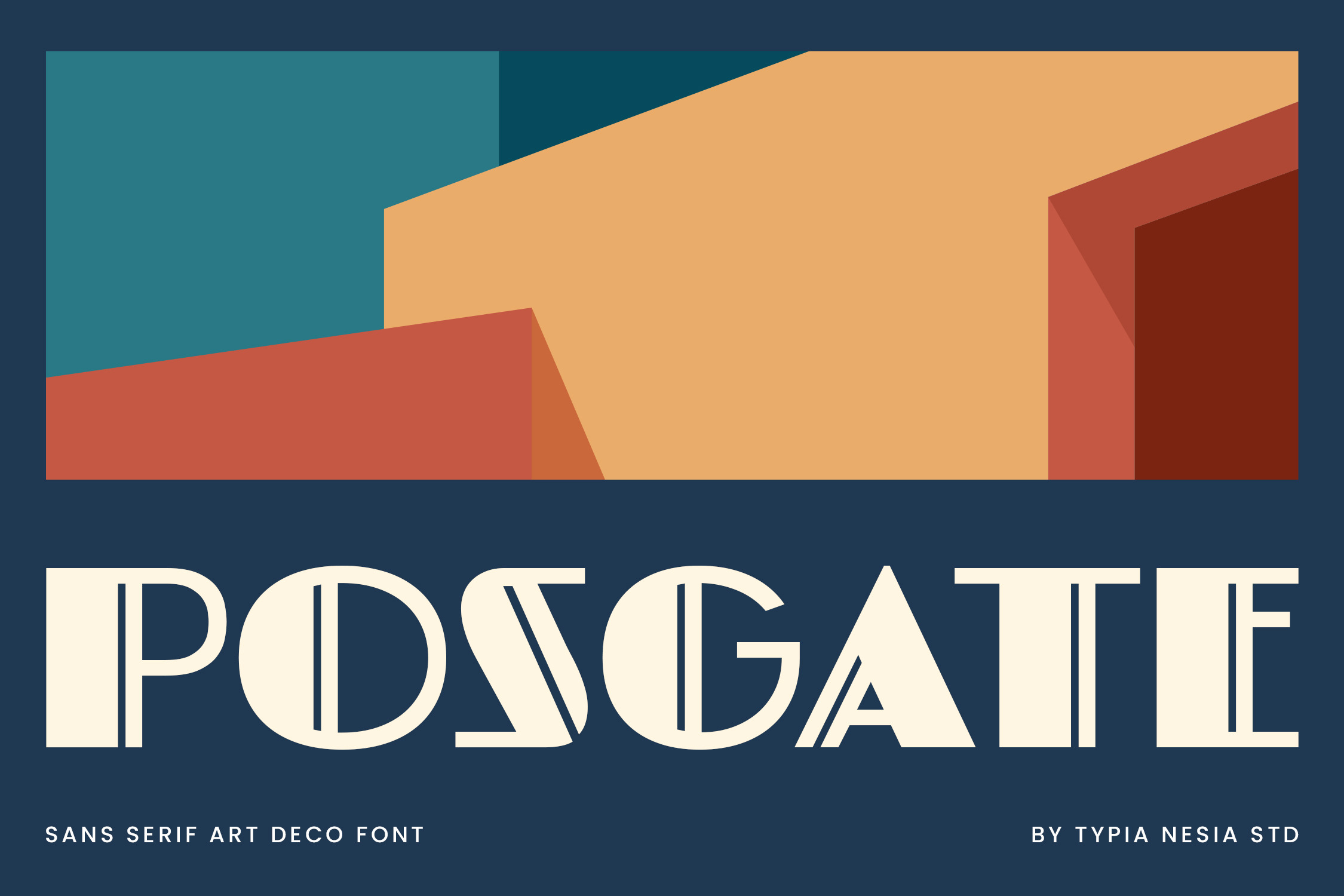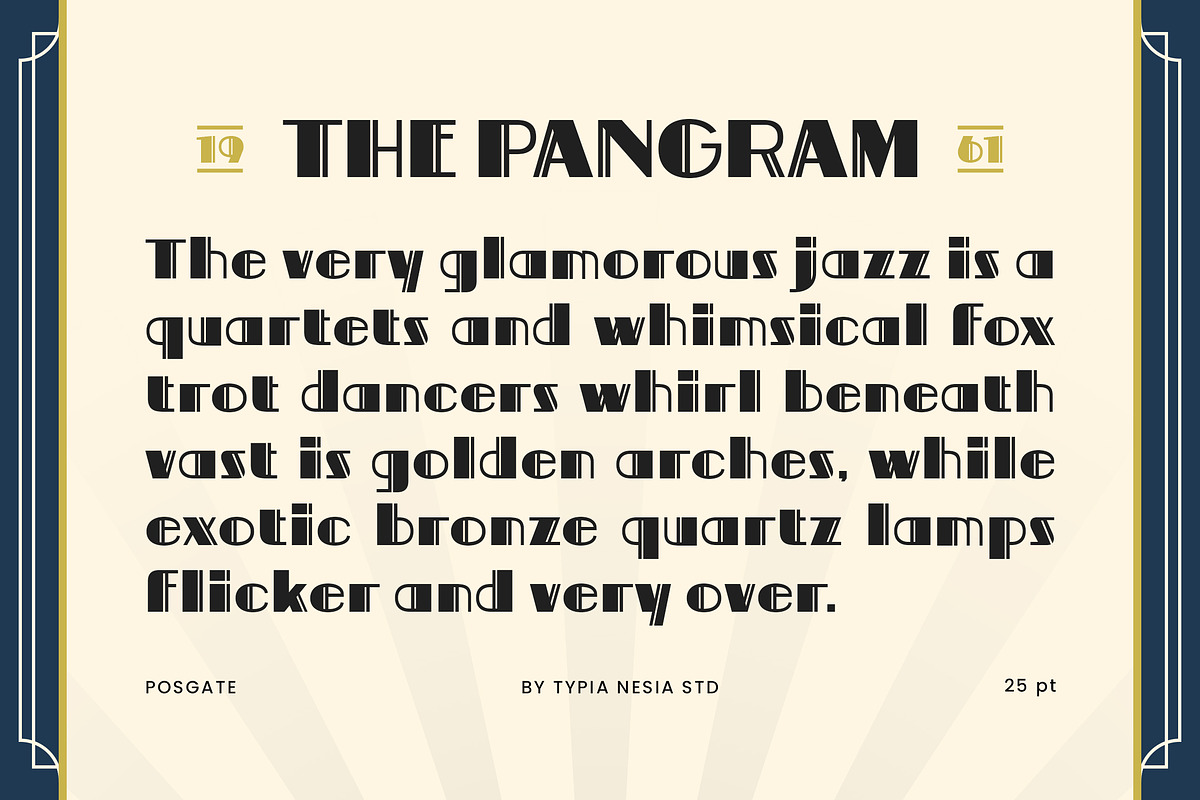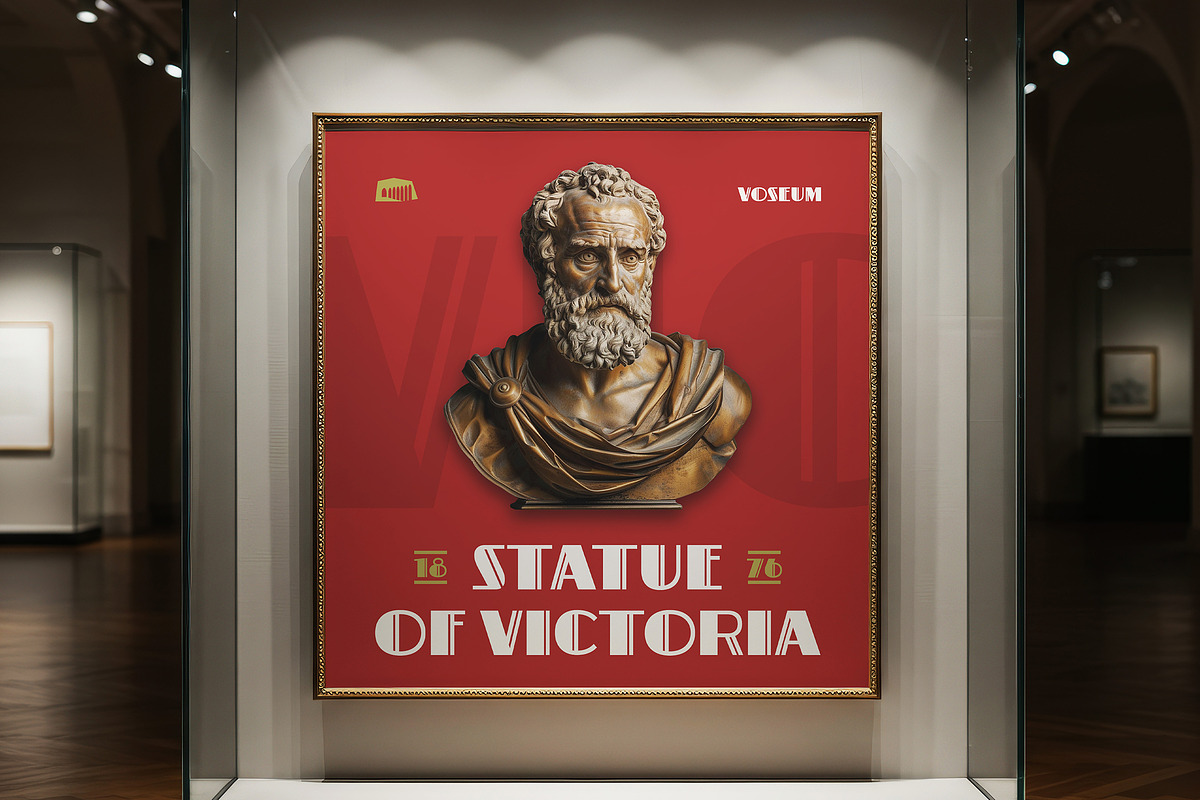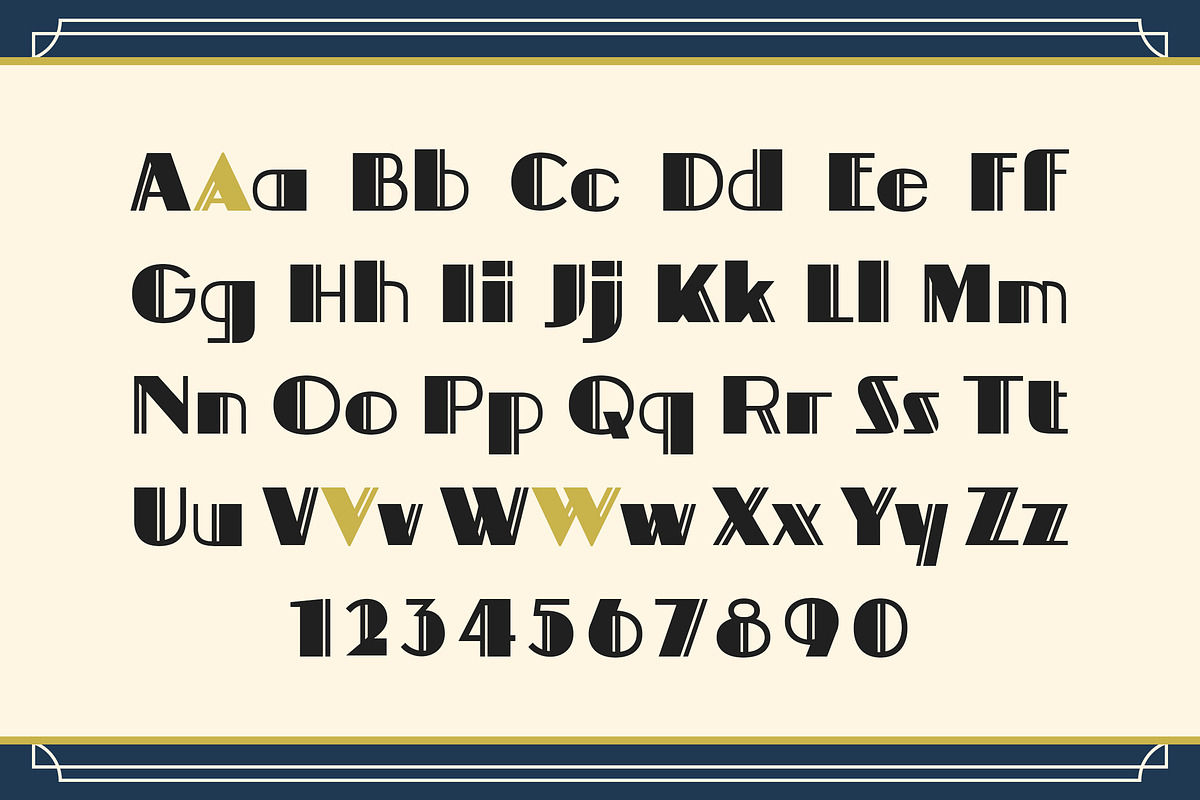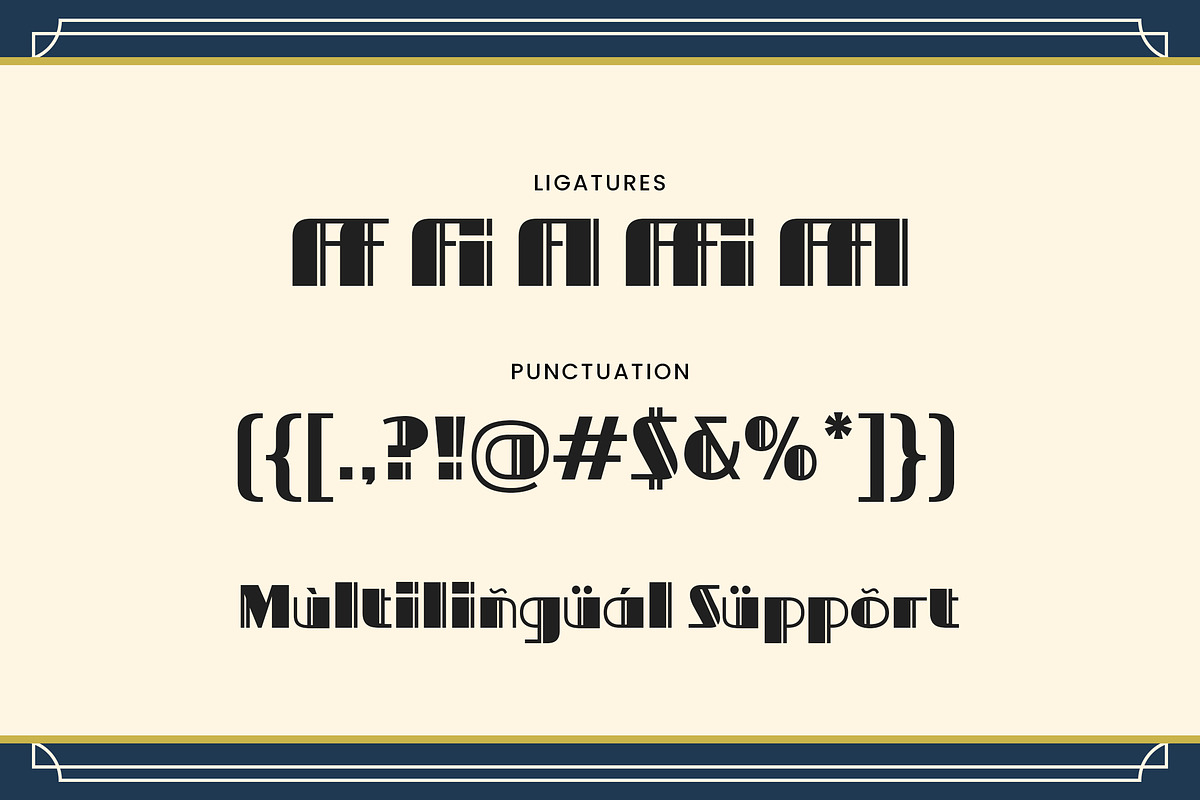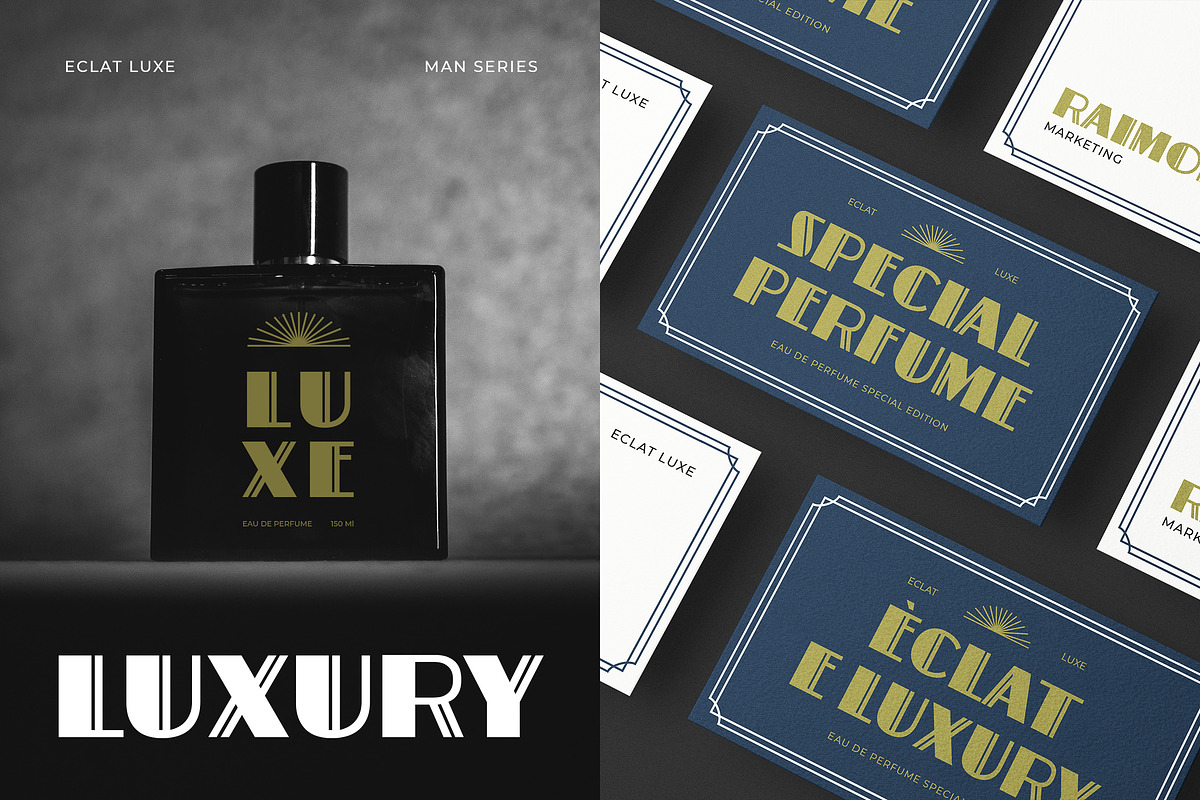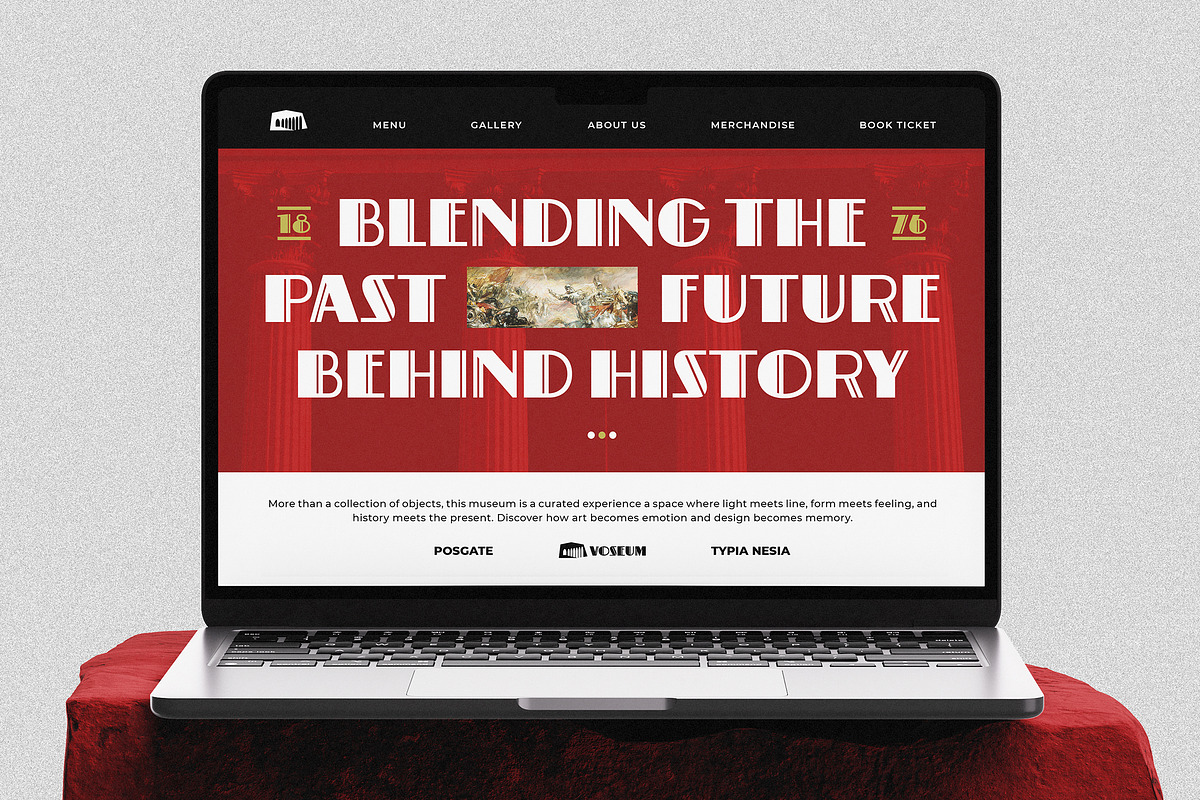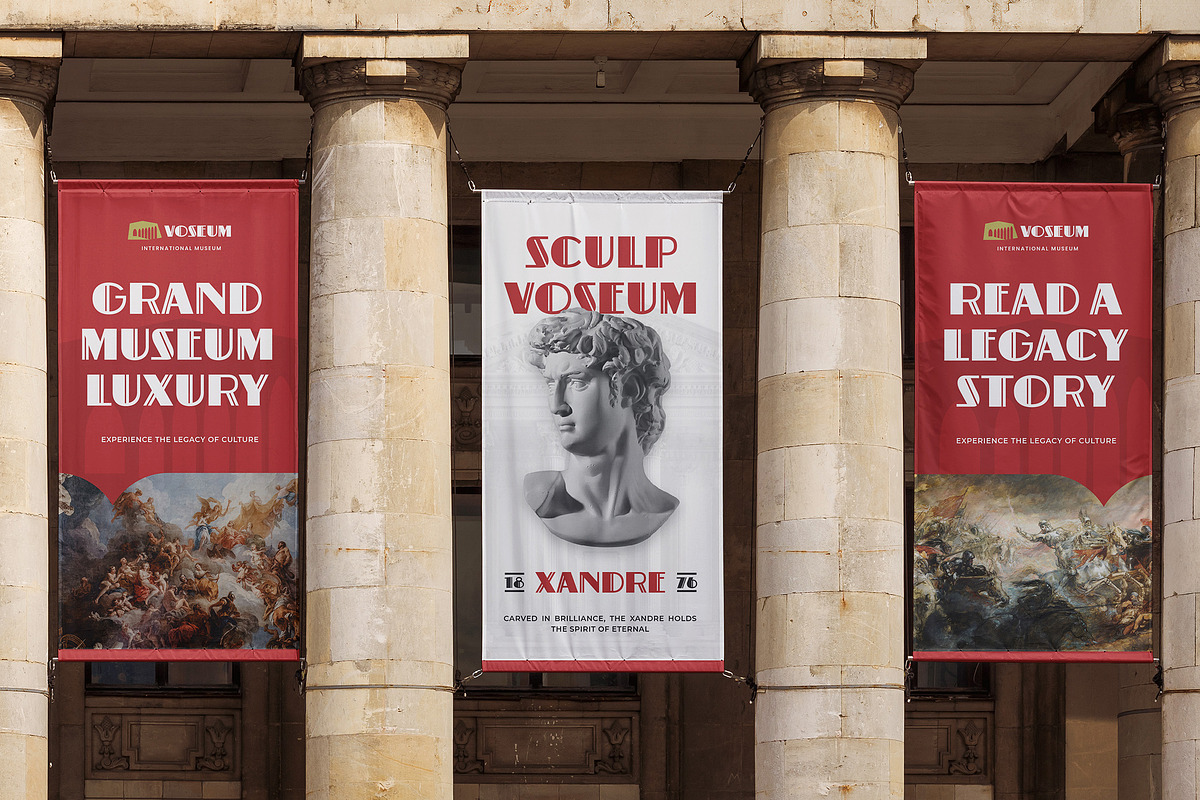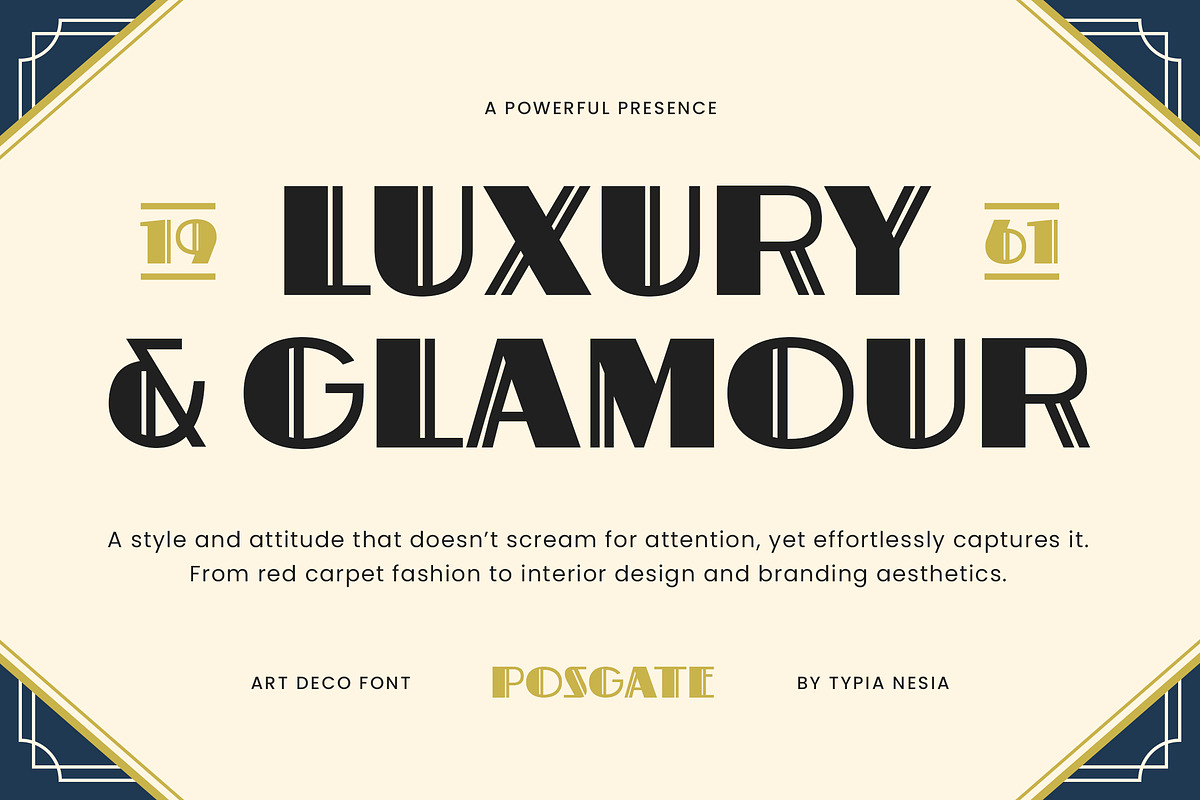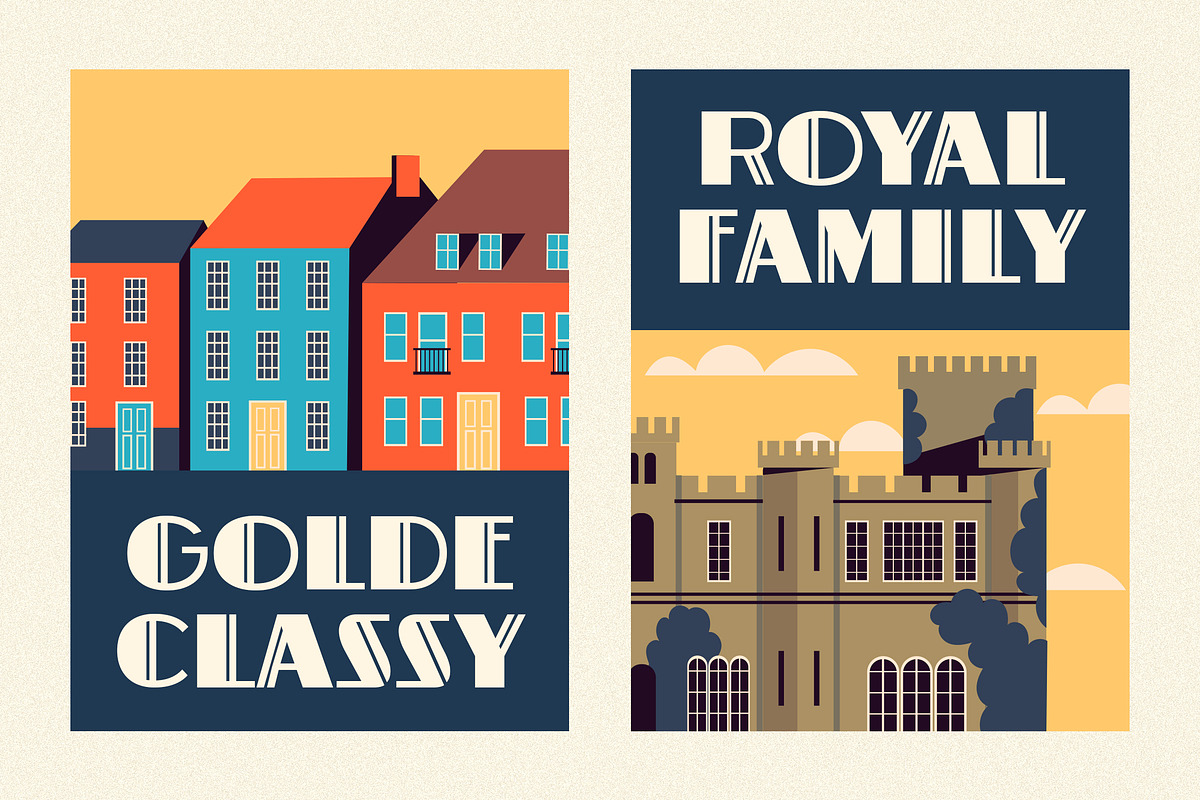
Postgate - Modern Art Deco Sans Font
Postgate - Modern Art Deco Sans Font - Vintage Retro Classic Luxury Display Font
Postgate is an elegant, Bold, and perfectly Modern display typeface that captures the enduring charm of the Art Deco era. This geometric sans font blends the classic symmetry of the 1920s with a contemporary finish, perfect for powerful brand logos, high-end packaging designs, posters, museum exhibitions, or architectural firm branding that references the timeless aesthetic of architecture and any projects that seek a luxury, vintage, or retro touch. Its unique, stylized characters, featuring striking parallel lines, this typeface to create designs that are both grand and memorable.